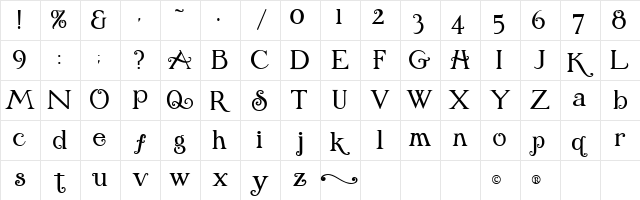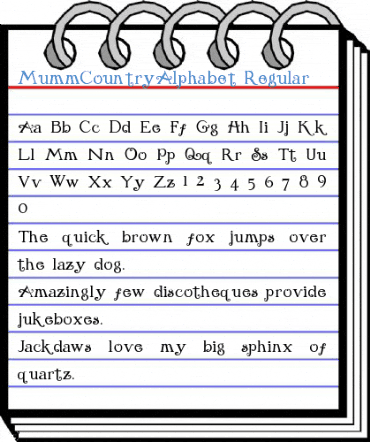
Complete MummCountryAlphabet Regular glyph index. Displaying only characters natively supported by MummCountryAlphabet Regular font.
MummCountryAlphabet is a composed and adaptable typeface that performs quietly and consistently across a wide range of design contexts.